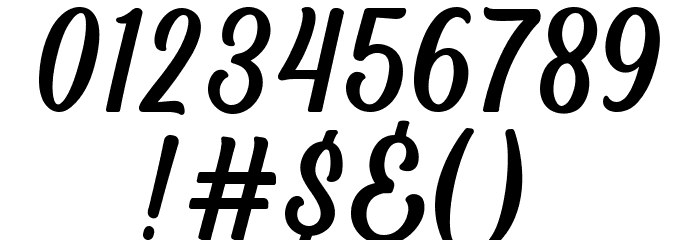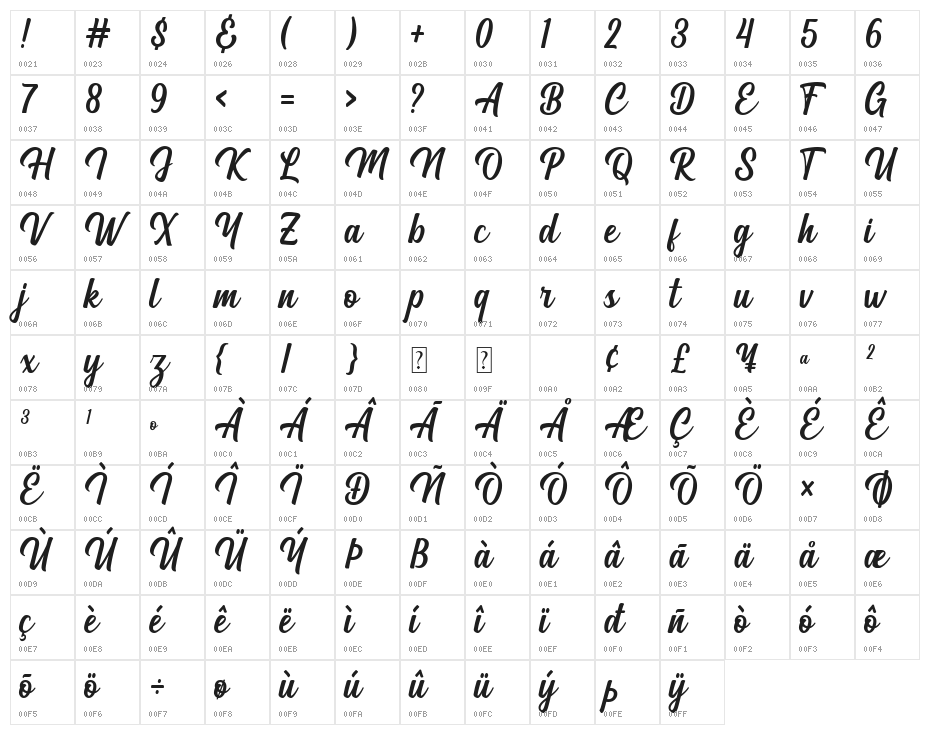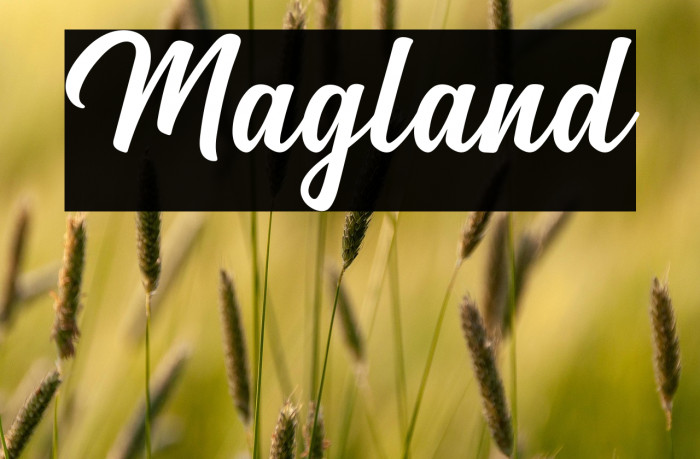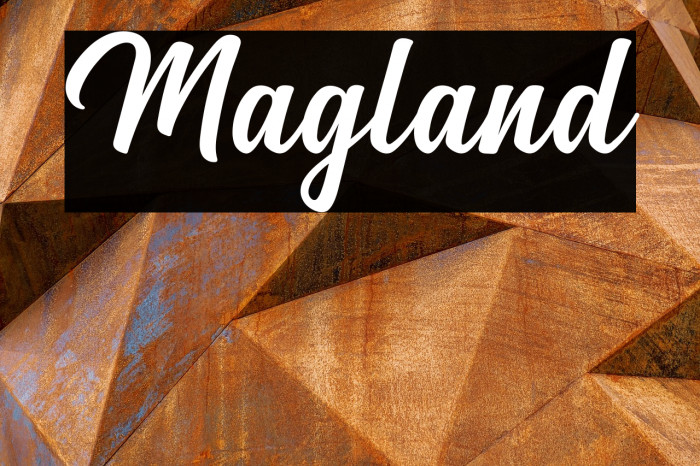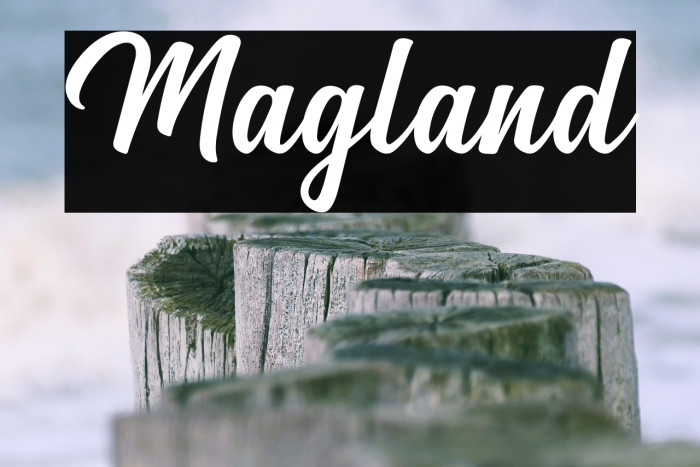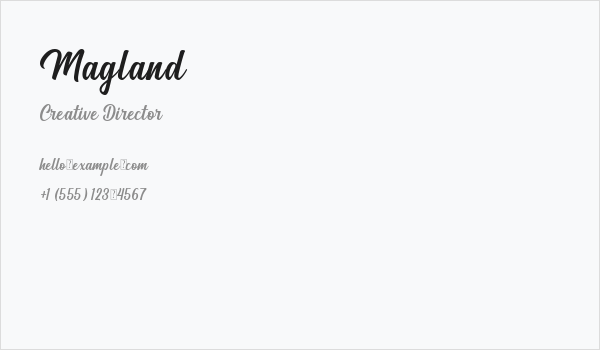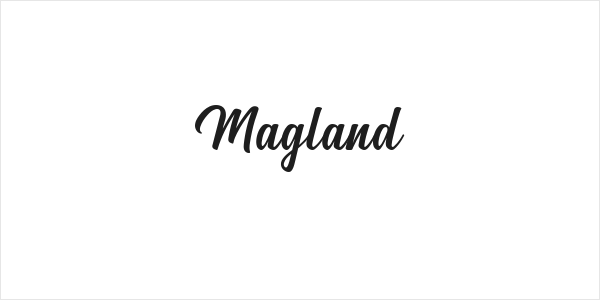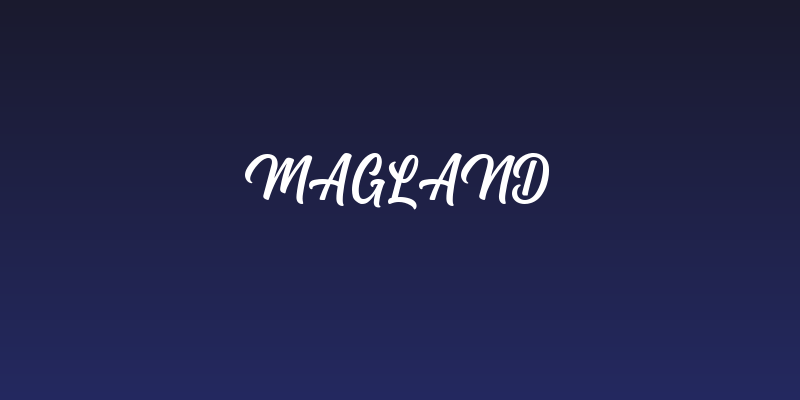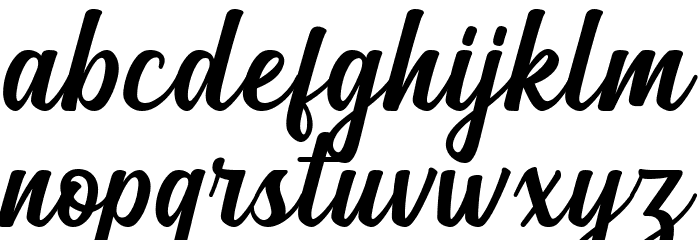
Magland Font
Magland Description
This font exudes a lively and dynamic character with its cursive script style. The letters are connected, creating a fluid and continuous flow that mimics natural handwriting. The uppercase letters maintain a consistent height, while the lowercase letters feature elegant loops and curves. The numerals are clear and legible, matching the overall style of the alphabet. Special characters are integrated seamlessly, maintaining the font's cohesive appearance. This font is perfect for adding a personal touch to any design, offering a blend of sophistication and approachability.
| Proposed Projects | Ideal for wedding invitations, greeting cards, personal branding, and creative projects that require a personal touch. |